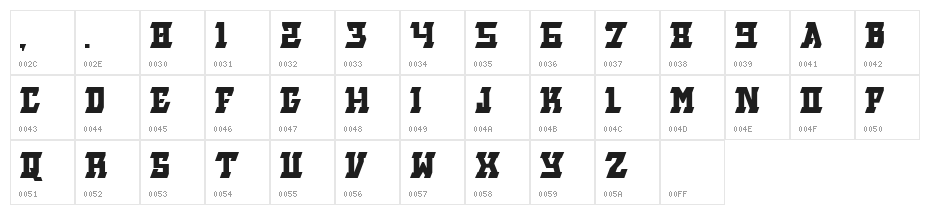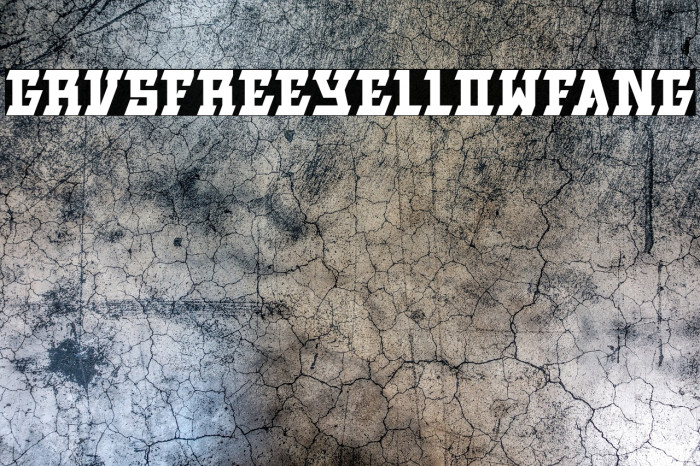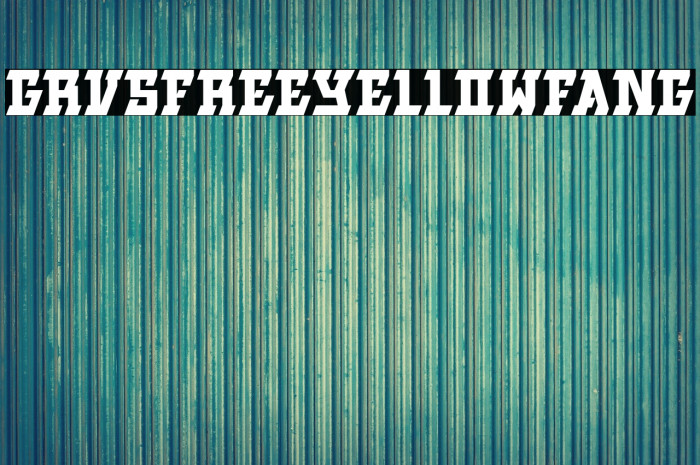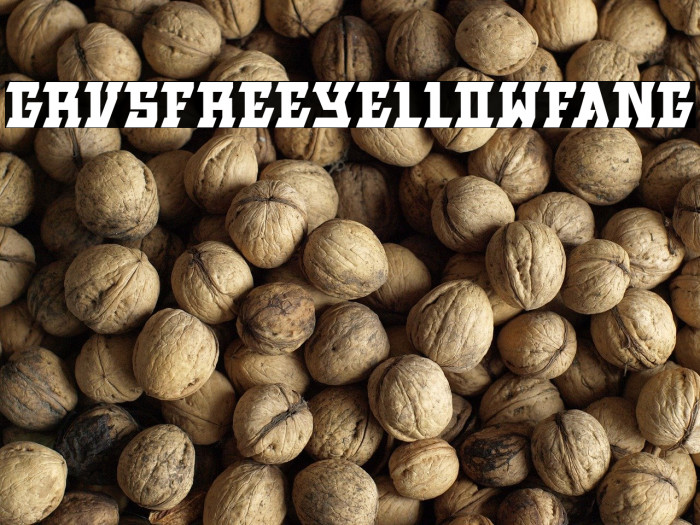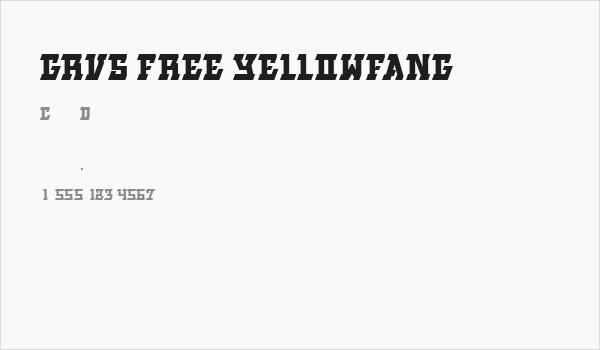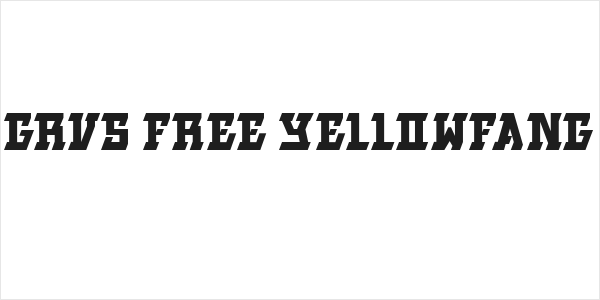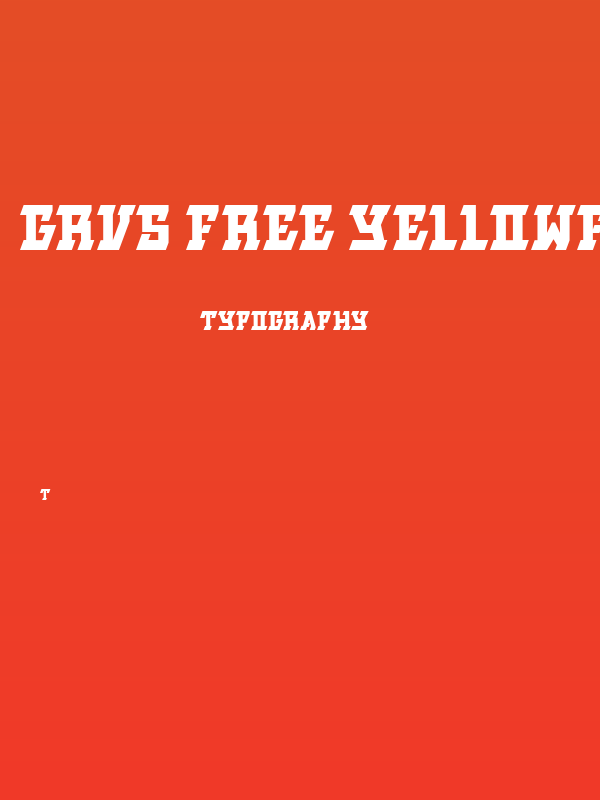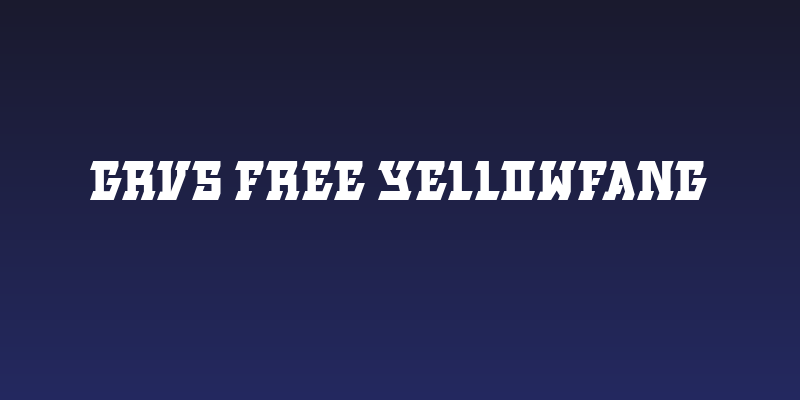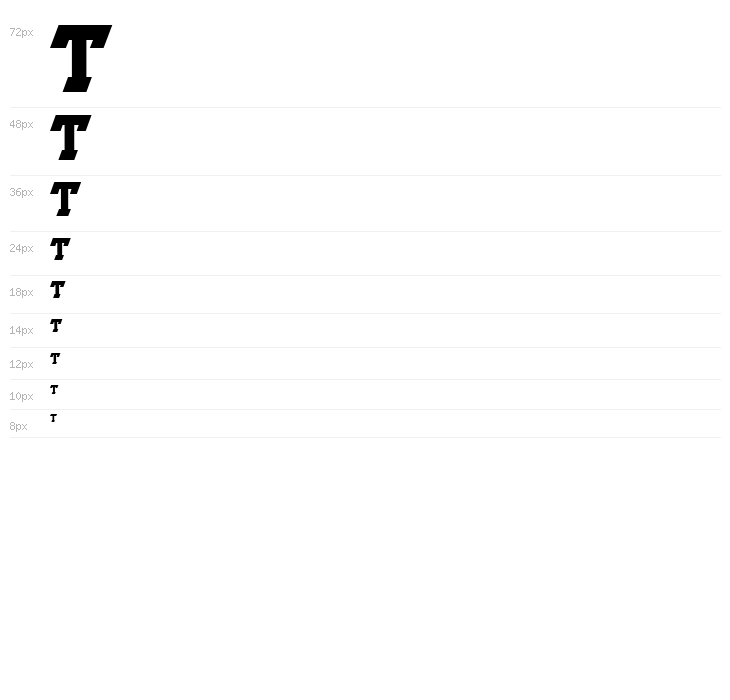
GRVS-FREE-YELLOWFANG Font
GRVS-FREE-YELLOWFANG Description
This font features a bold and angular design, characterized by sharp edges and a strong presence. The uppercase and lowercase letters share a consistent geometric style, with a slightly condensed width that enhances its impactful appearance. The numbers follow the same angular theme, providing a cohesive look across all characters. The special characters maintain the bold and edgy aesthetic, making this font suitable for attention-grabbing designs. Its high contrast in stroke thickness adds to its dramatic and assertive style, making it ideal for projects that require a strong visual impact.
| Proposed Projects | Ideal for sports branding, poster headlines, video game titles, and any project needing a bold, impactful typeface. |